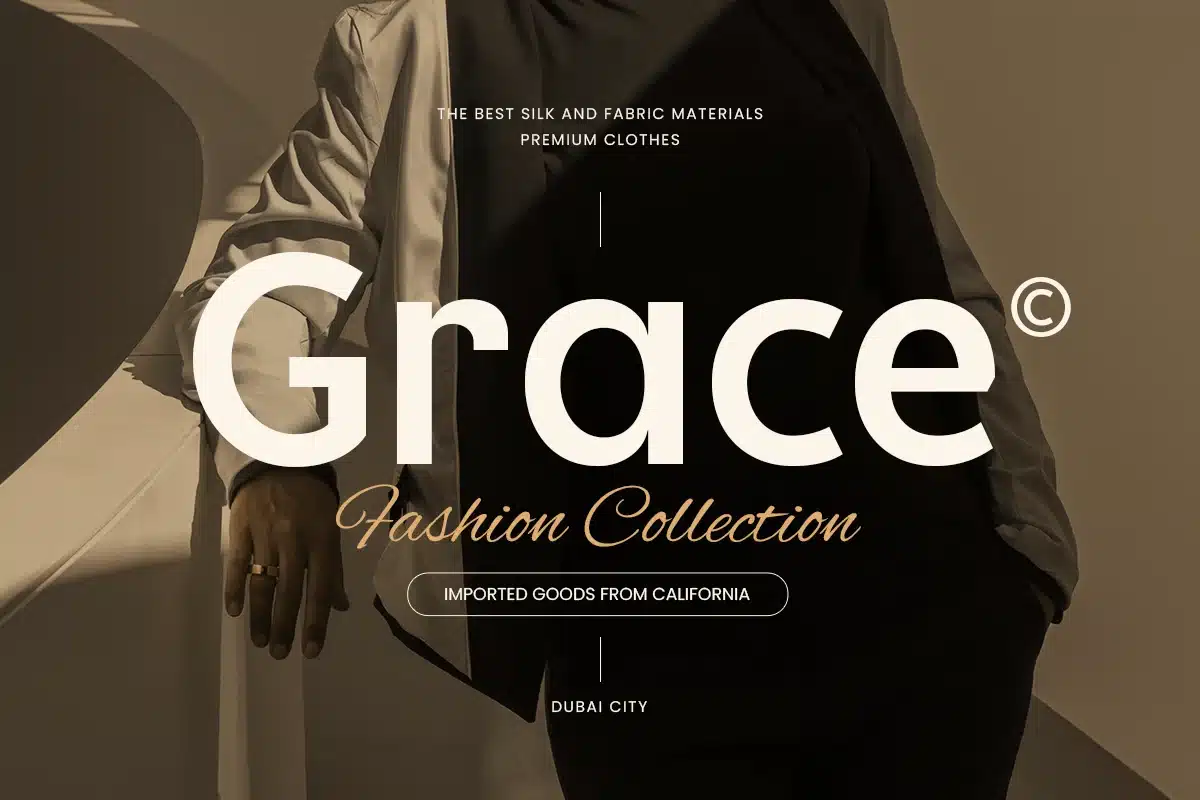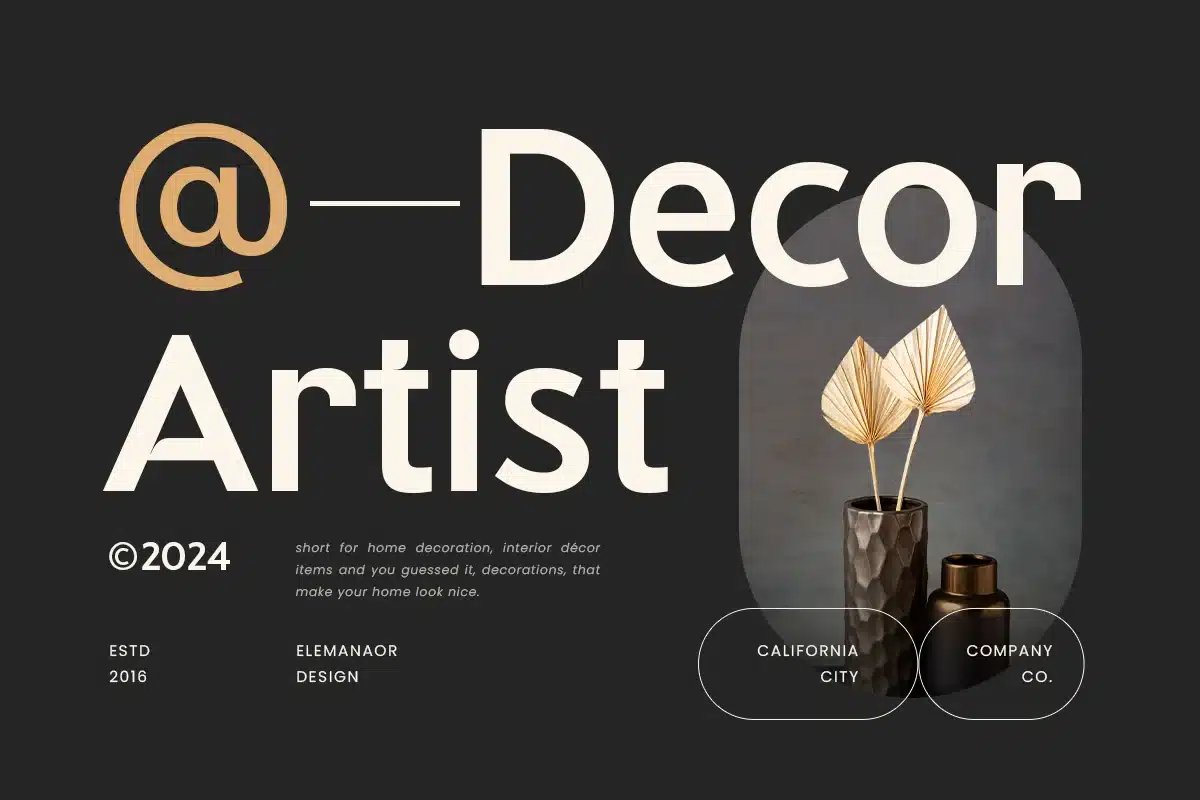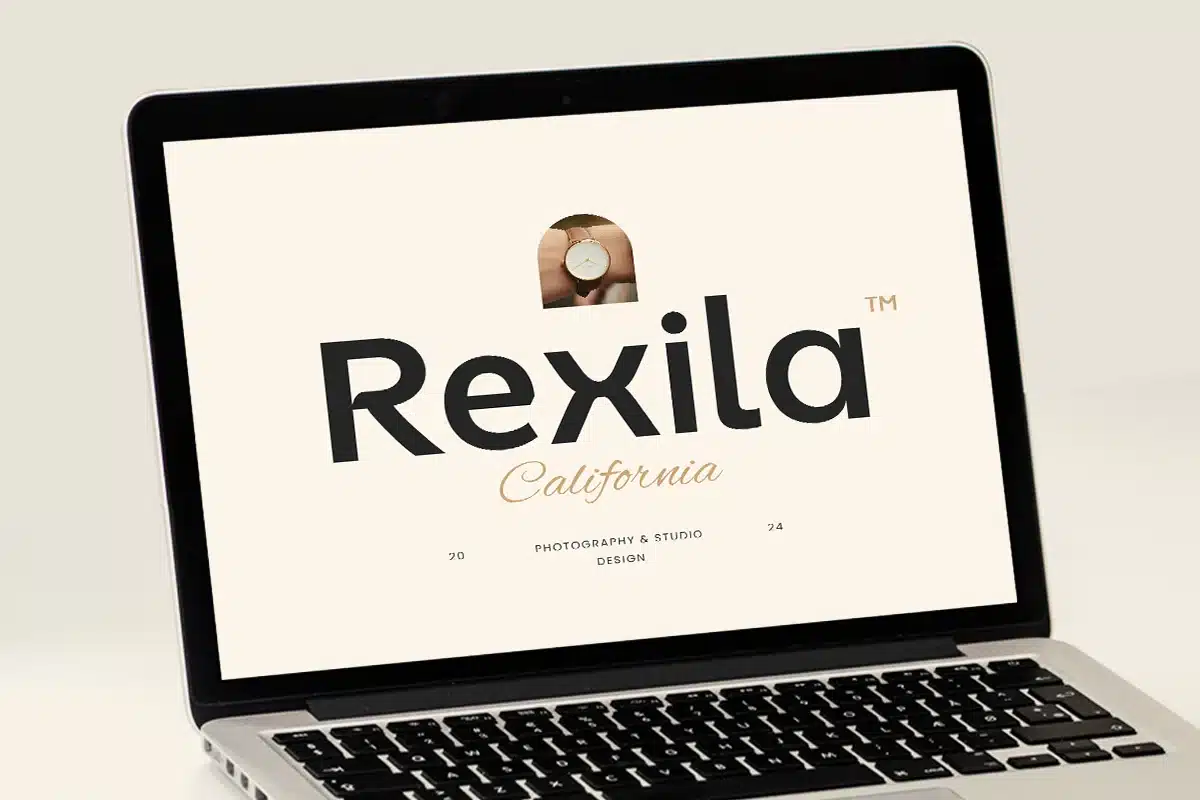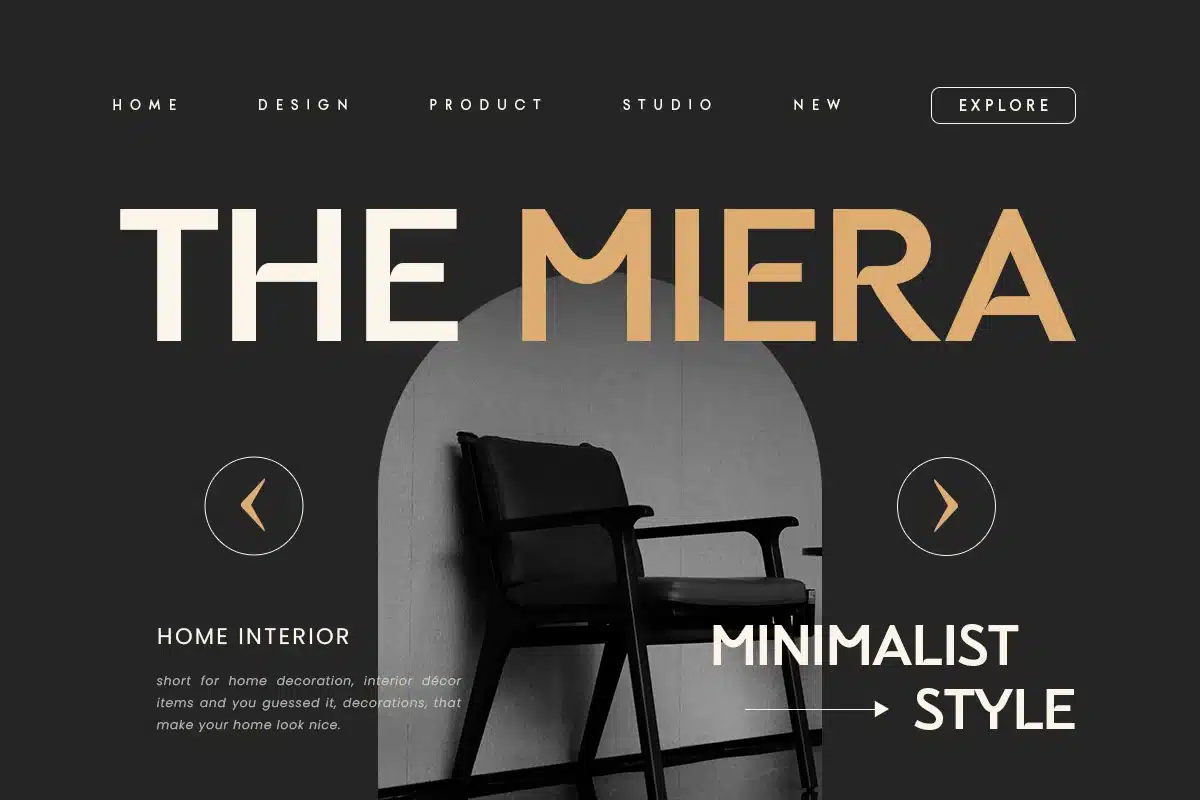
Megumi – Neo Brutalism Logo Font + Webfont
Introducing Megumi, a bold and striking font inspired by the Neo-Brutalism design movement. Perfect for creating modern and impactful logos, Megumi combines clean lines and edgy aesthetics to make your brand stand out.
- Bold Design: Strong and striking, ideal for creating impactful logos and branding.
- Neo-Brutalism Style: Inspired by the Neo-Brutalism movement, bringing a modern and minimalist touch to your designs.
- Versatile Usage: Perfect for logos, posters, headlines, and graphic design projects.
- Clean Aesthetics: Minimalist and edgy, ensuring your designs stand out.
Elevate your branding with Megumi, a font that embodies the essence of Neo-Brutalism. Whether you're designing logos, posters, or other graphic projects, Megumi adds a bold and stylish touch to your work. Make a statement with Megumi's modern and clean design.